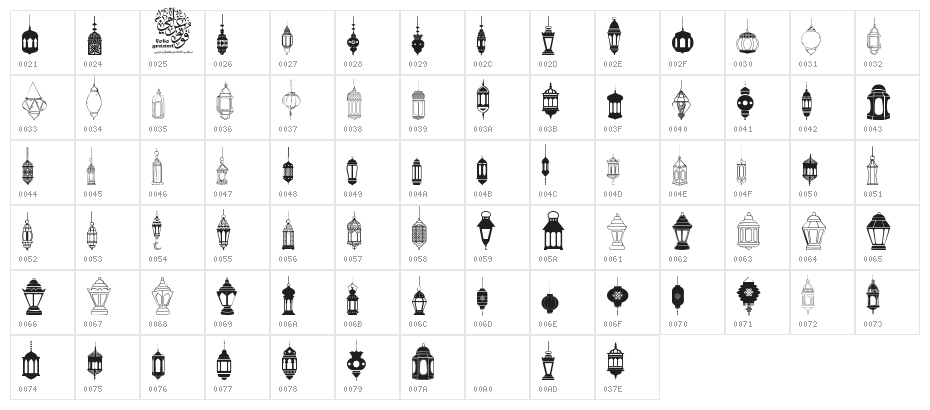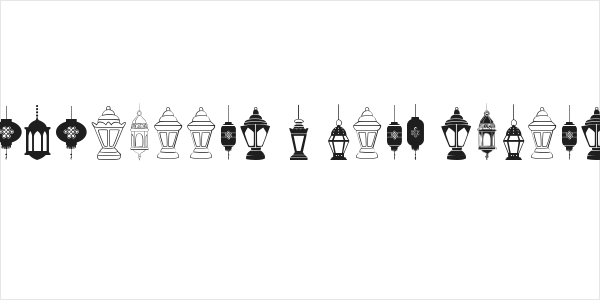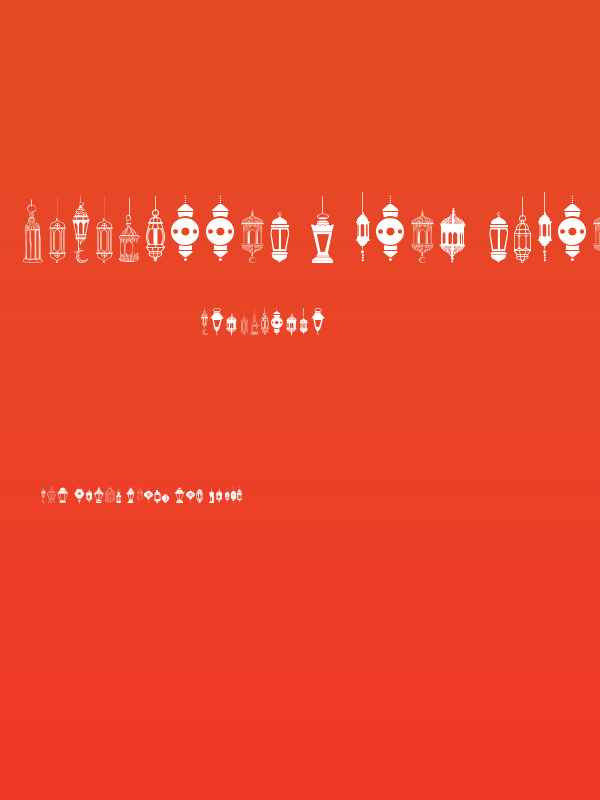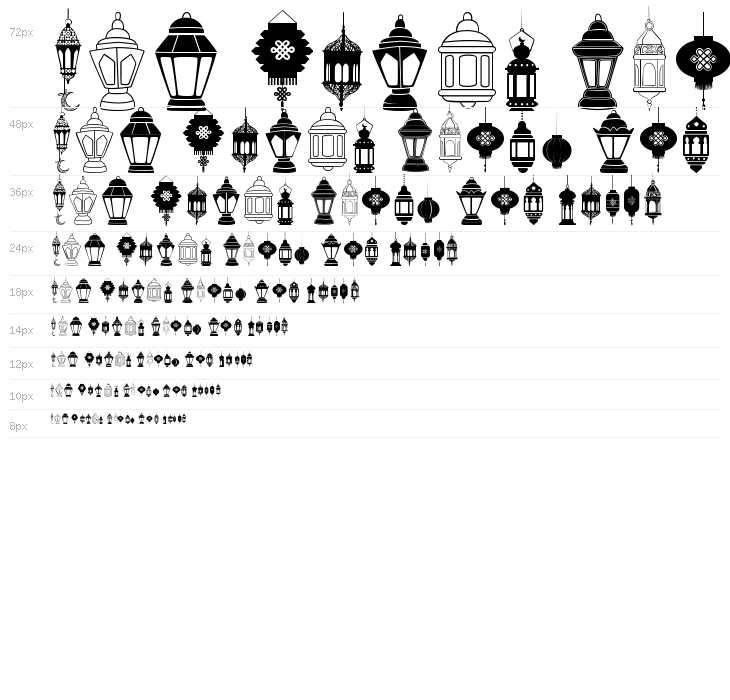
fotograami - lamp islamic Font
fotograami - lamp islamic Description
This image contains a collection of intricate, decorative lantern illustrations inspired by Islamic art and architecture, featuring a variety of geometric and floral patterns, domed tops, and hanging elements. The designs are primarily black and white, with both filled and outlined styles, and include a mix of traditional and modern interpretations.
| Overall Style | Decorative, Traditional, Islamic Art |
| Use Case | Decorative elements, branding, festive graphics, cultural materials |
| Proposed Projects | Ramadan or Eid greeting cards, event posters, festive banners, digital invitations, branding for Middle Eastern restaurants, educational materials about Islamic culture. |